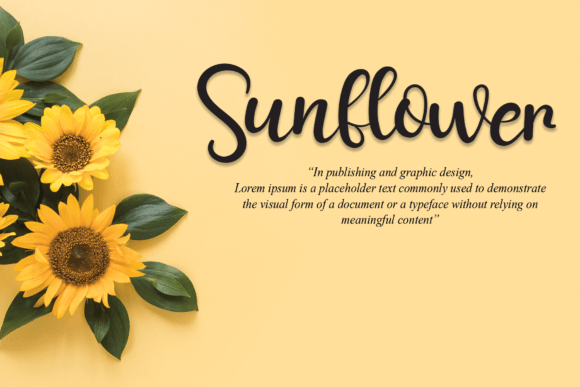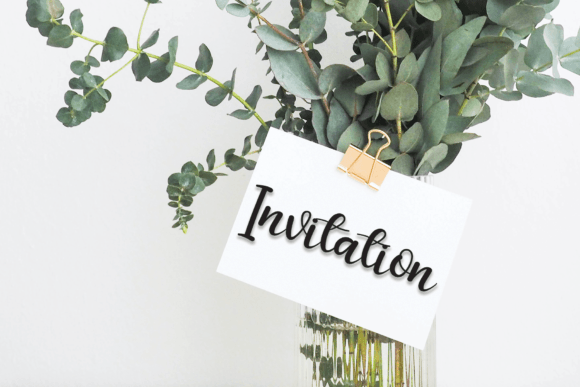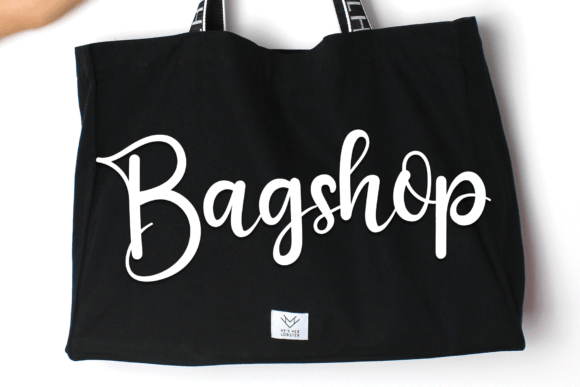
Rainbow Font
The Rainbow Font Download is a fun and friendly handwritten script designed to bring joy, creativity, and versatility to your projects. With its natural handwritten flow and approachable style, Rainbow works perfectly across crafts, posters, invitations, branding, and digital design. Its cheerful strokes make it a favorite choice for designers who want a playful yet professional typeface.
A Fun Handwritten Script with Playful Charm
Unlike ordinary fonts, the Rainbow script font combines smooth handwritten lines with a modern, inviting feel. As a result, it brings personality and warmth to any design while staying legible and versatile.
Handwritten fonts always add intimacy to personal stationery. The Rainbow Font is ideal for wedding invitations, thank you notes, birthday cards, and seasonal greetings. Moreover, its joyful handwritten rhythm ensures your designs feel heartfelt and memorable.
Branding and Logo Design with Rainbow Font
Typography is an essential part of brand identity, and the Rainbow handwritten font is an excellent choice for boutique logos, product packaging, and promotional designs. In addition, its casual yet refined strokes give businesses a friendly and approachable image.
Posters, Titles, and Creative Displays
The Rainbow Font Download adapts beautifully to posters, magazine covers, banners, and book titles. Therefore, it works well across both large and small-scale projects, maintaining clarity while adding handwritten charm.
In today’s online creative world, fonts must grab attention quickly. The Rainbow typeface integrates seamlessly into Instagram graphics, YouTube thumbnails, Pinterest posts, and blog headers. Its friendly handwritten look ensures your digital projects feel engaging and stylish.
Why Designers Choose Rainbow Typeface
Designers love fonts that offer both personality and usability. Many handwritten fonts look playful but can lose readability; however, the Rainbow handwritten script keeps its joyful charm while staying clear and functional. This makes it a dependable option for creative professionals and hobbyists alike.
Add Cheerful Elegance to Your Projects Today
If you want a handwritten script that feels fun, friendly, and versatile, the Rainbow Font Download is the perfect choice. From invitations and greeting cards to posters, branding, and social media, it enriches every project with a cheerful handwritten style. Finally, download Rainbow today and let your designs shine with joy and creativity.